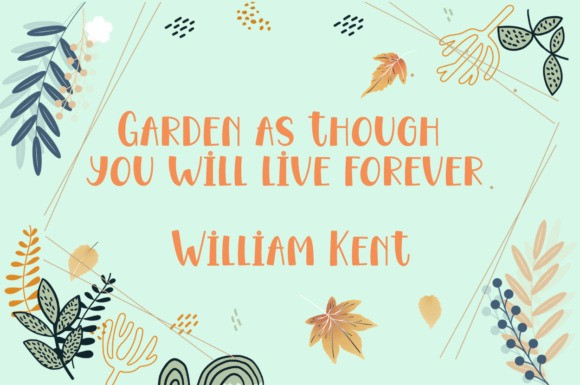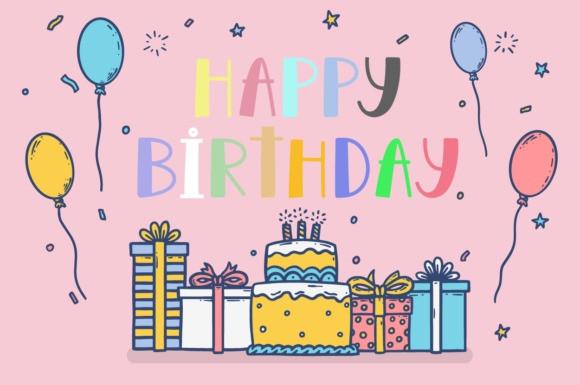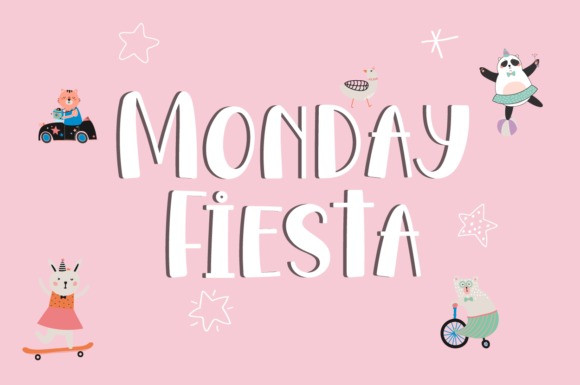
Monday Fiesta Font
Monday Fiesta Font is a fun and friendly display font. Whether you’re using it for crafts, digital design, presentations, or making greeting cards, this font has the potential to become your favorite go-to font, no matter the occasion!